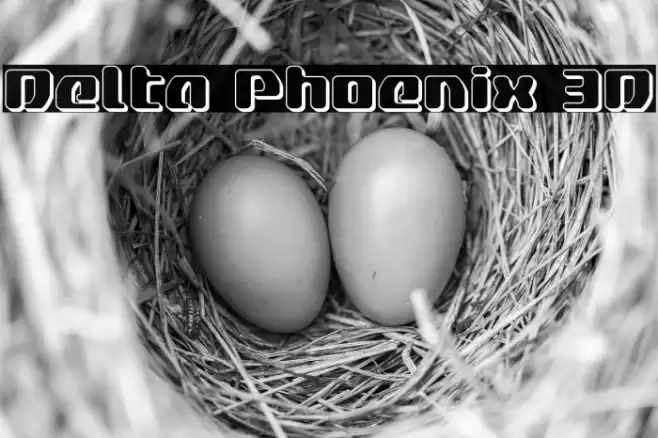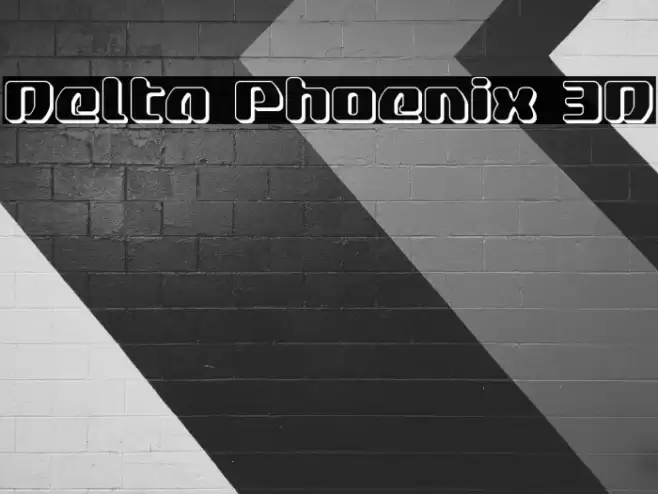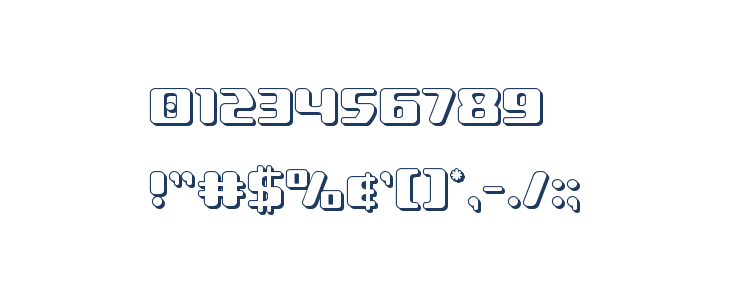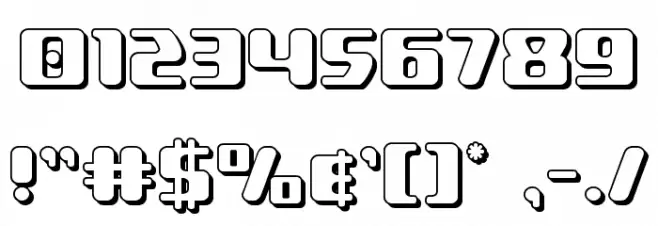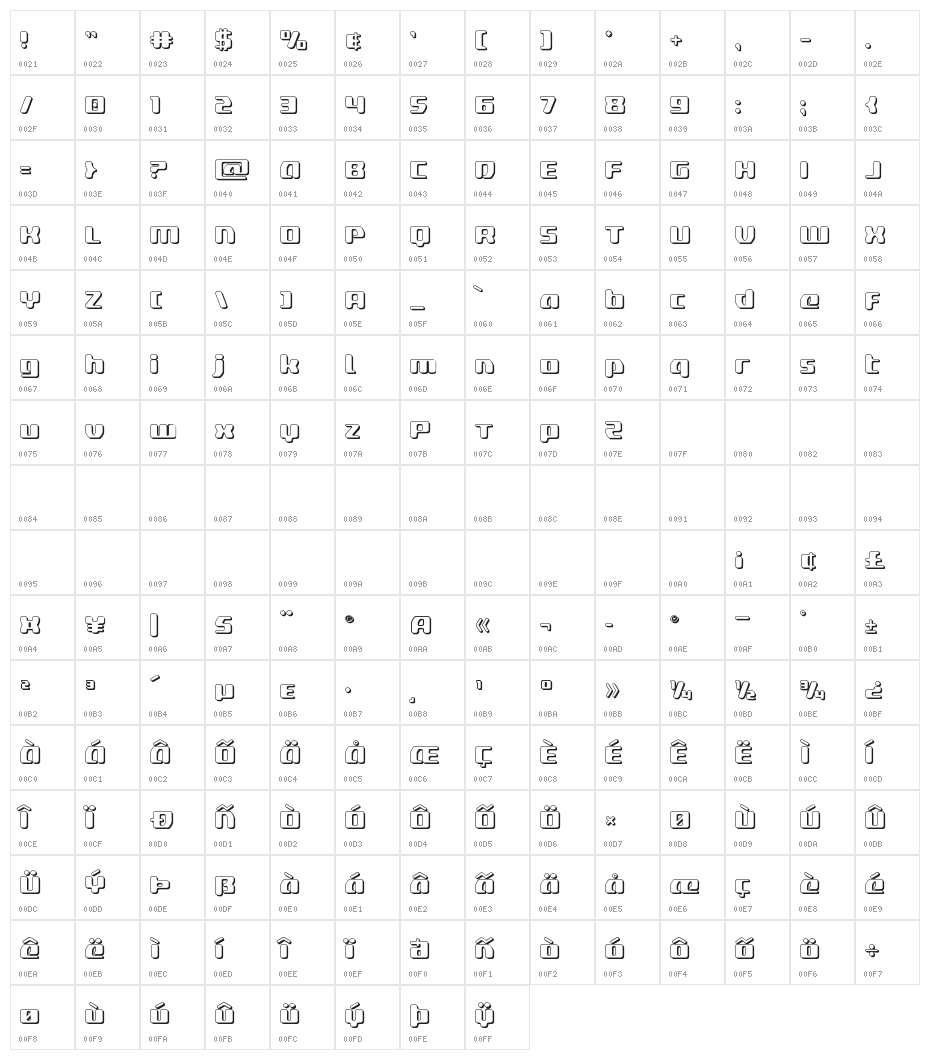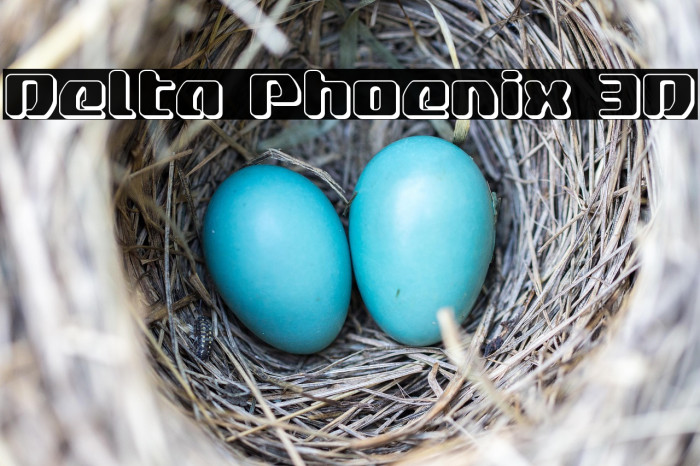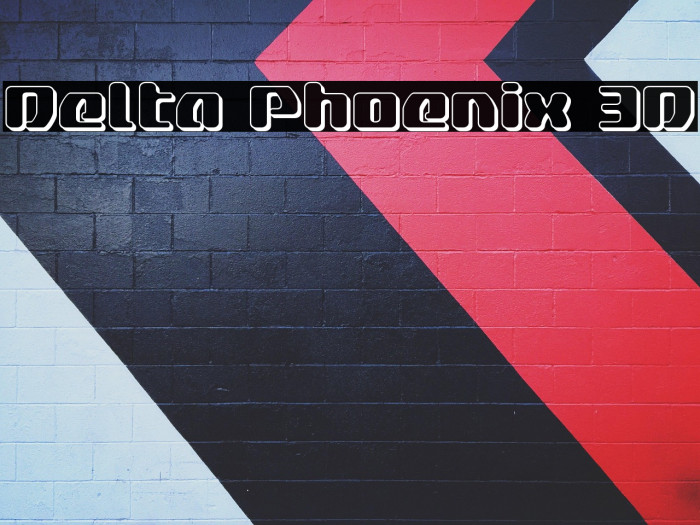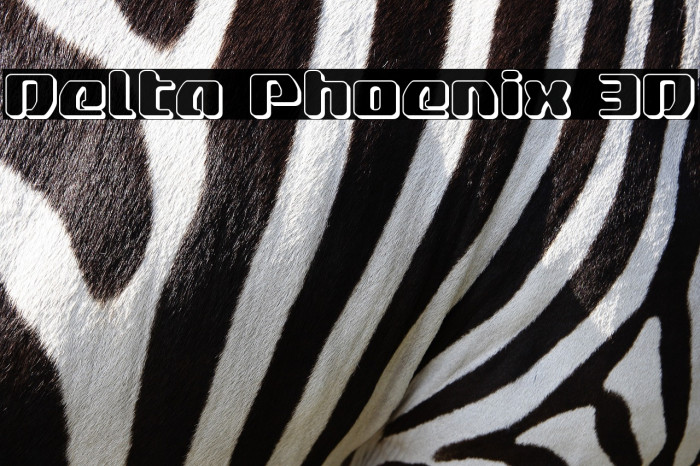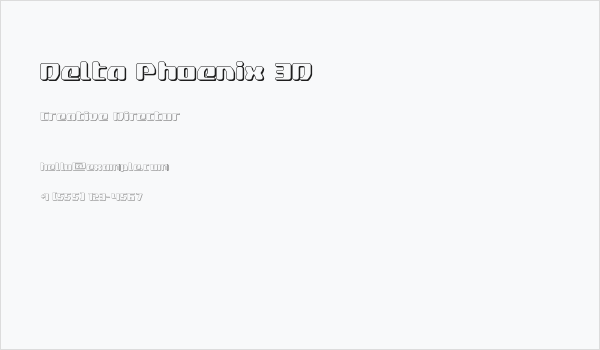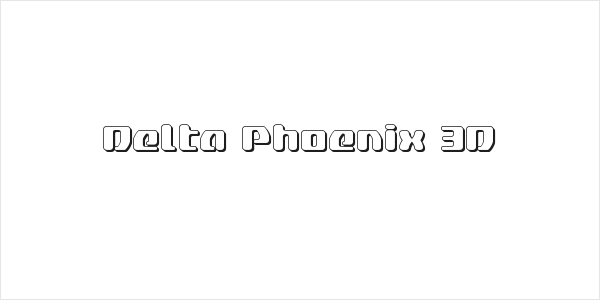
Delta Phoenix 3D Font
Delta Phoenix 3D Description
This font features a bold, three-dimensional outline style that gives each character a distinct, futuristic appearance. The letters are constructed with a thick, uniform stroke that creates a sense of depth and solidity. The geometric shapes and clean lines contribute to a modern and technical aesthetic, making it ideal for projects that require a strong visual impact. The uppercase and lowercase letters maintain consistent proportions, ensuring readability while adding a unique flair. The numerals and special characters are designed to match the bold style, providing a cohesive look across all text elements.
A bold, 3D outline font with a futuristic and geometric design from Uncategorized fonts.
- Proposed Projects: Ideal for technology branding, video game titles, sci-fi posters, and digital interfaces.